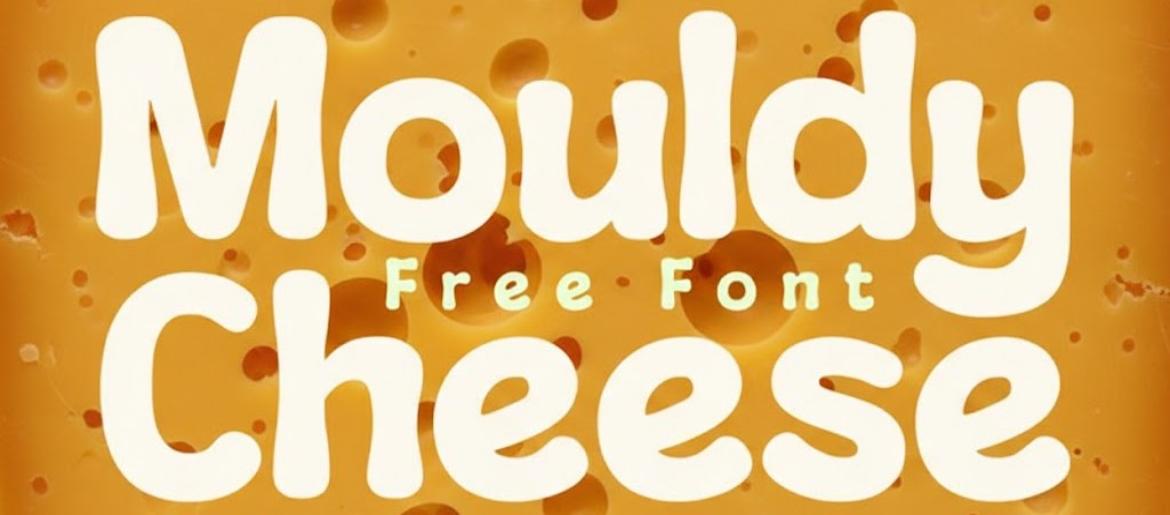
Mouldy Cheese Font
Mouldy Cheese Font is a fancy decorative typeface with quirky, irregular letterforms and a playful personality. Its unique style makes it perfect for creative logos, posters, packaging, and fun designs that need a bold, unusual, and eye-catching look.
➤ Font Name: Mouldy Cheese
➤ Designer: Niskala Huruf
➤ Style: Fancy